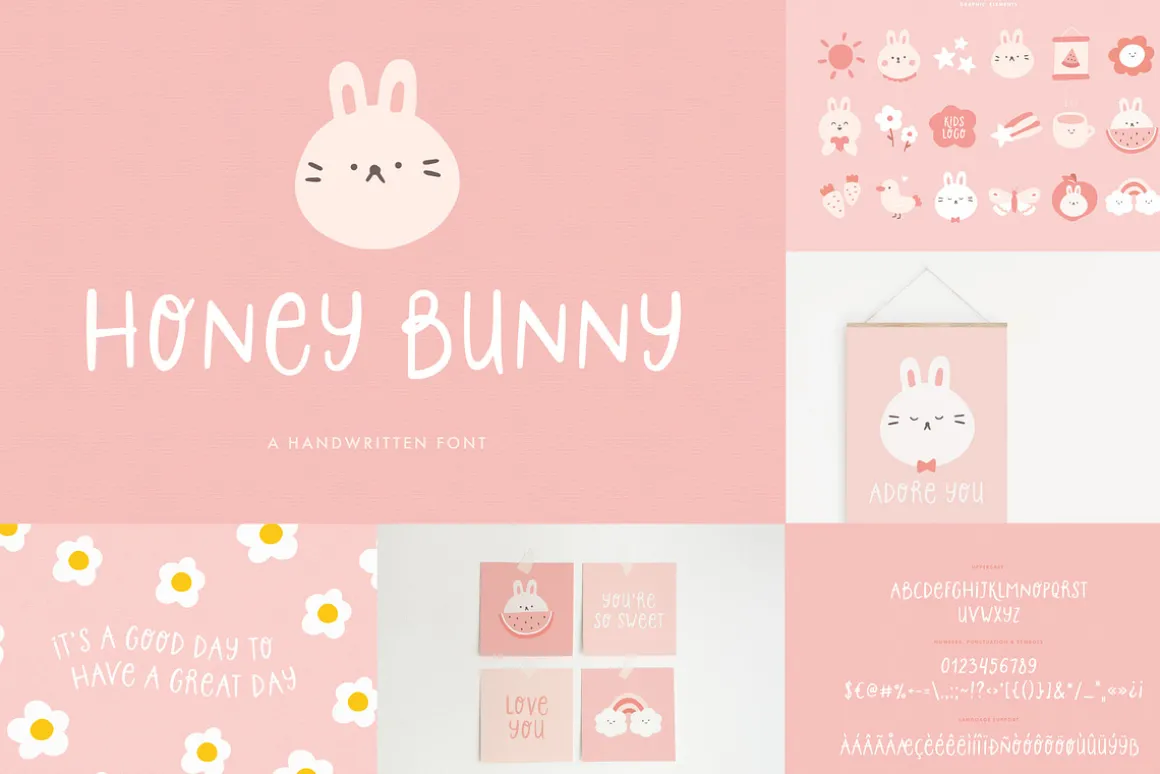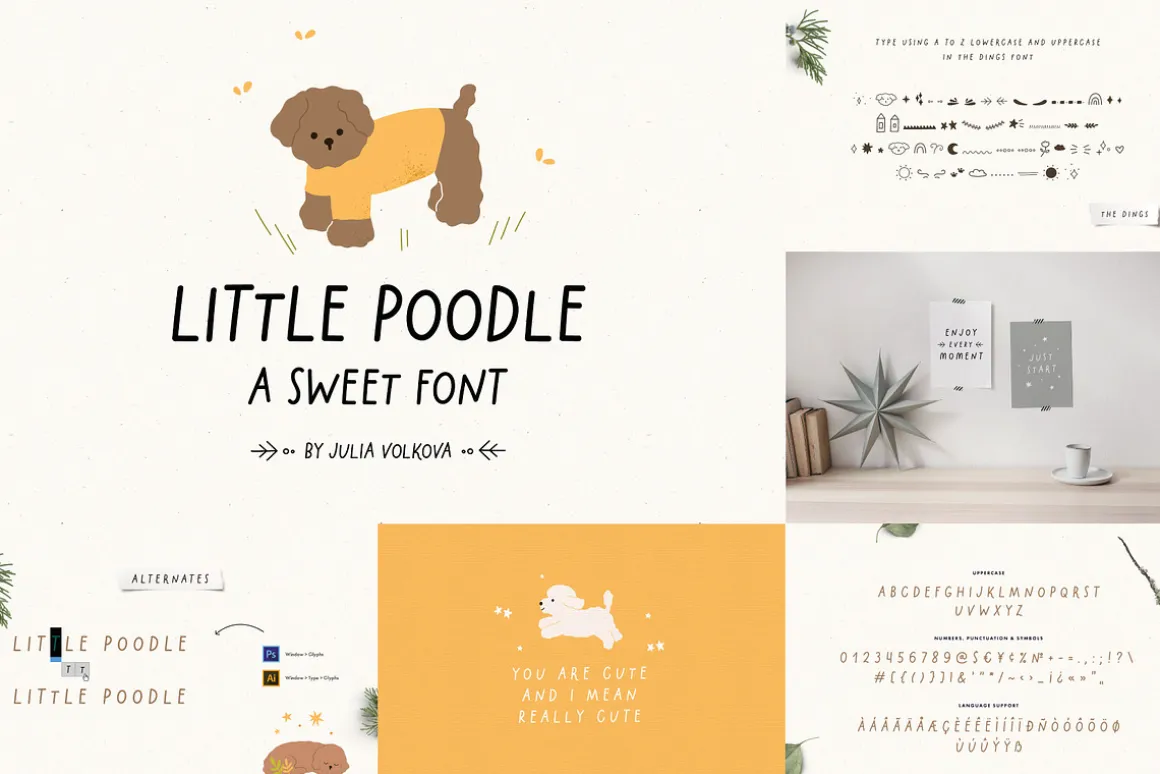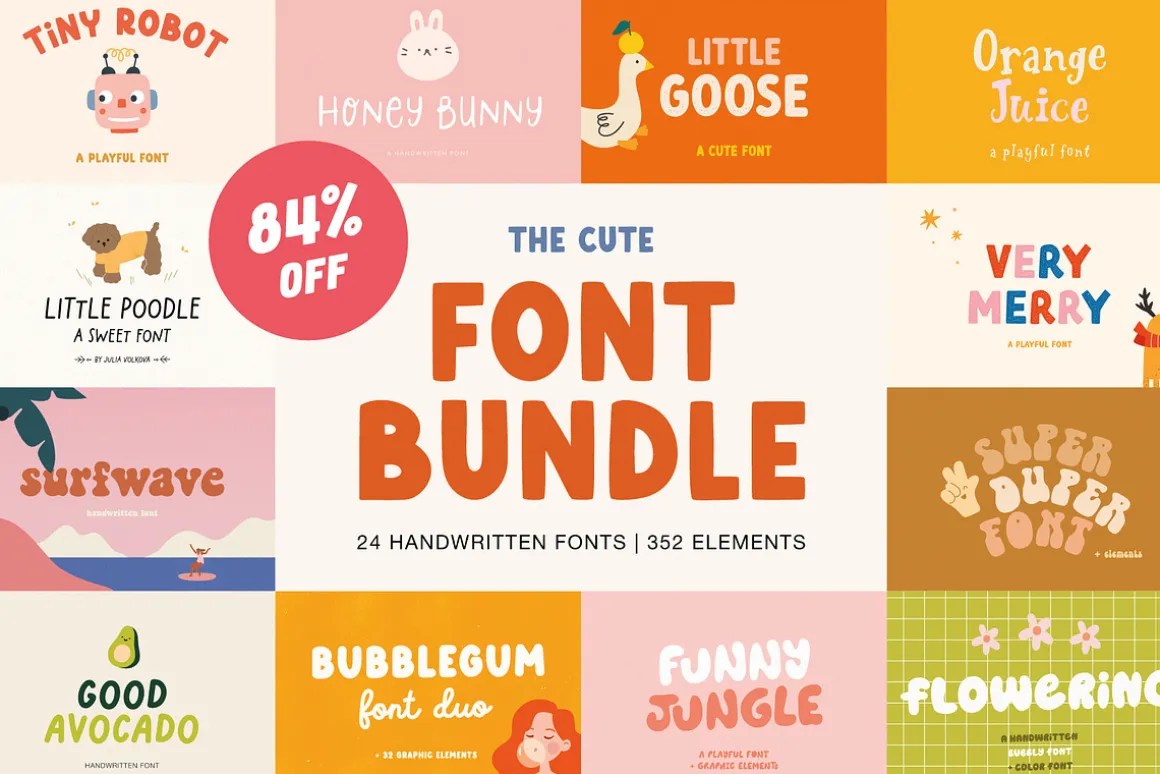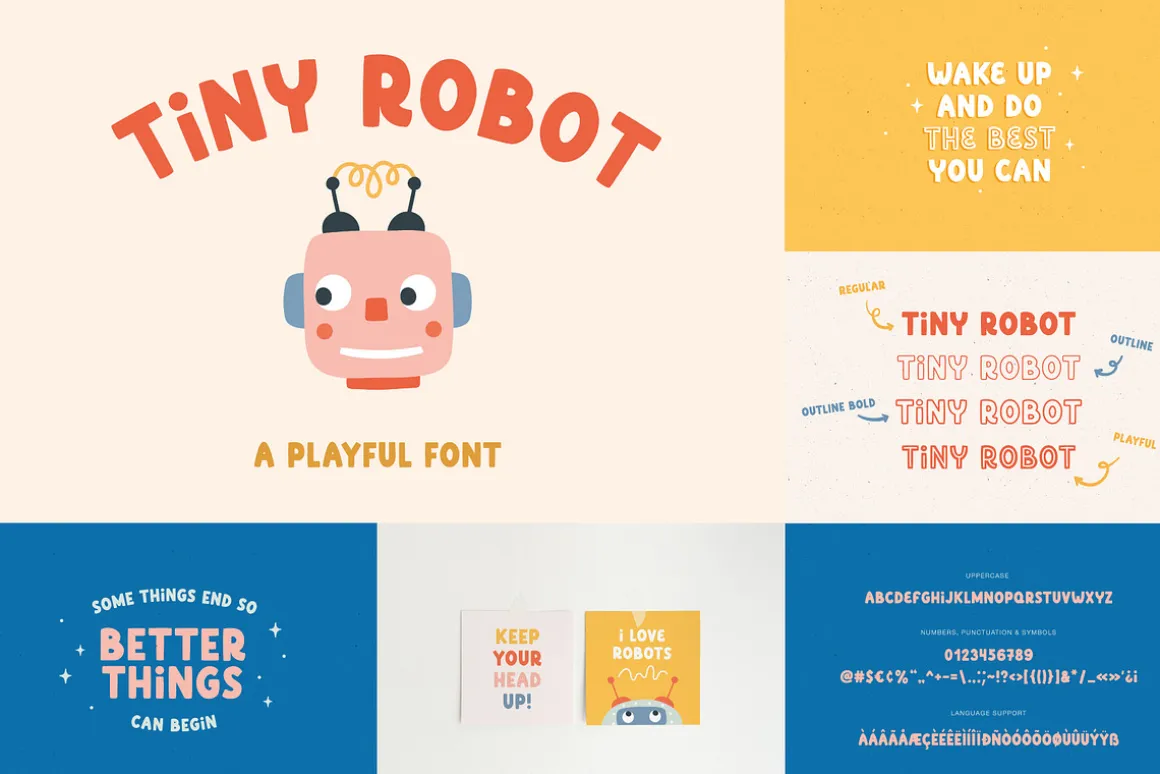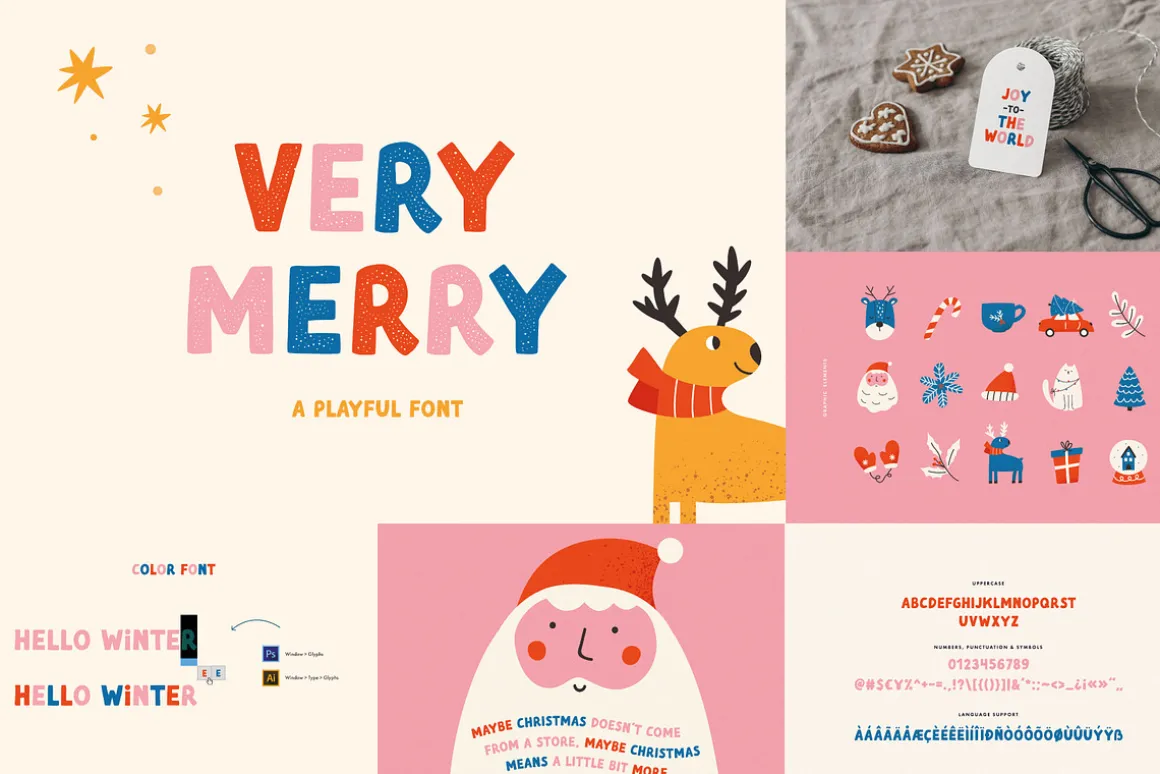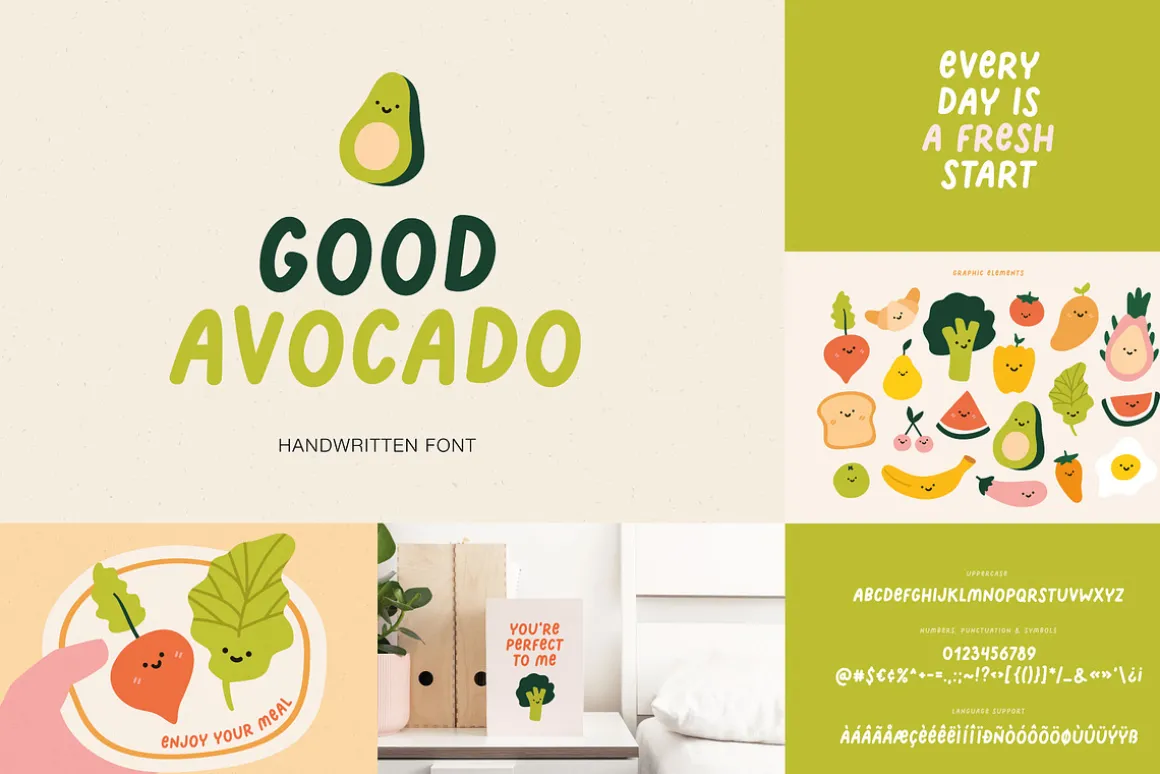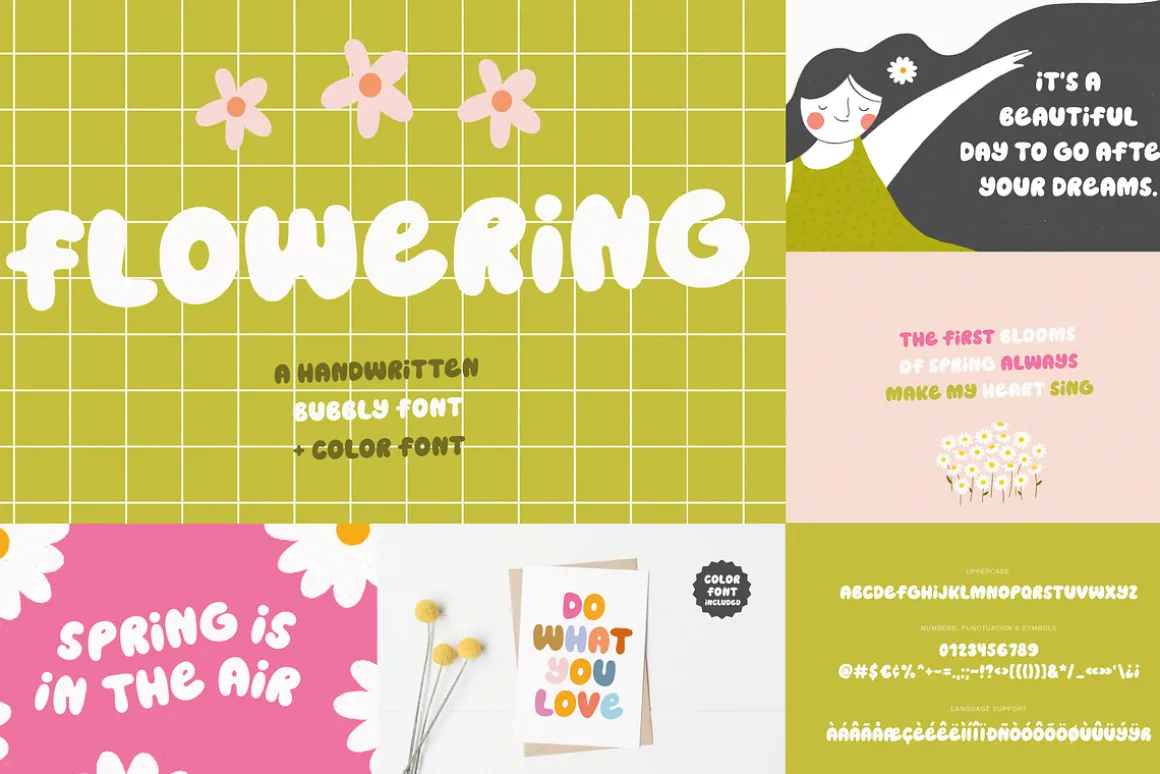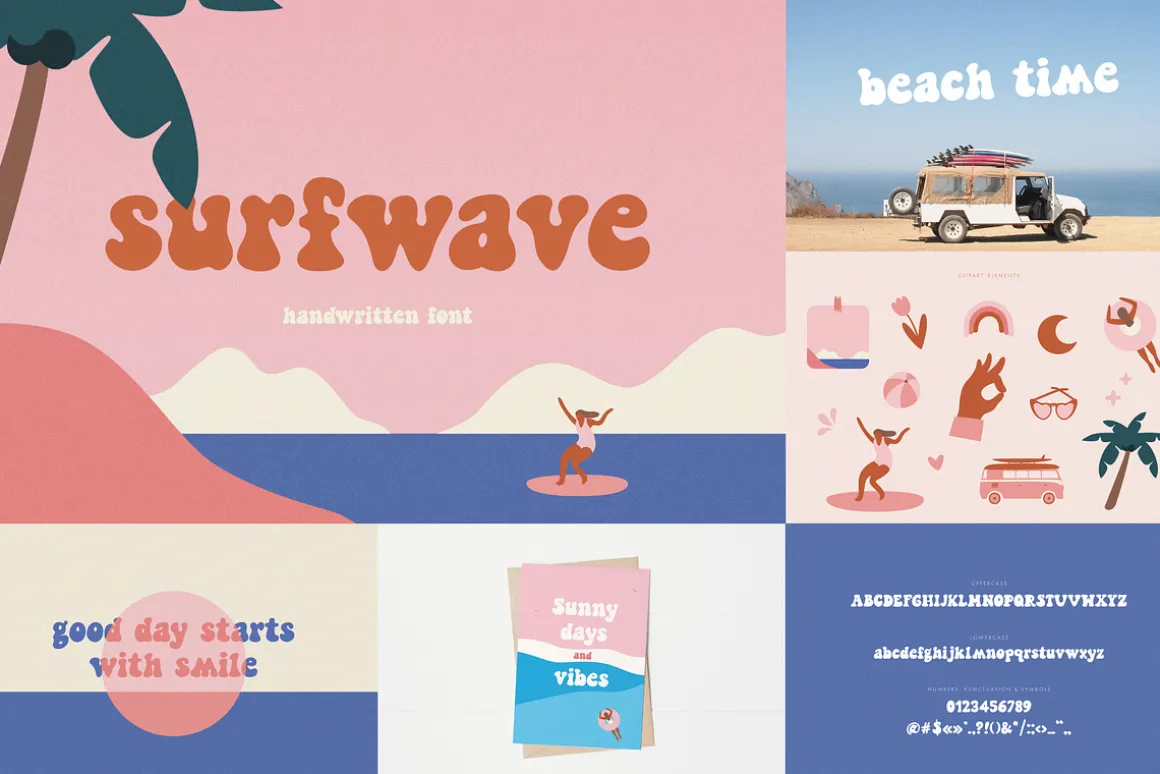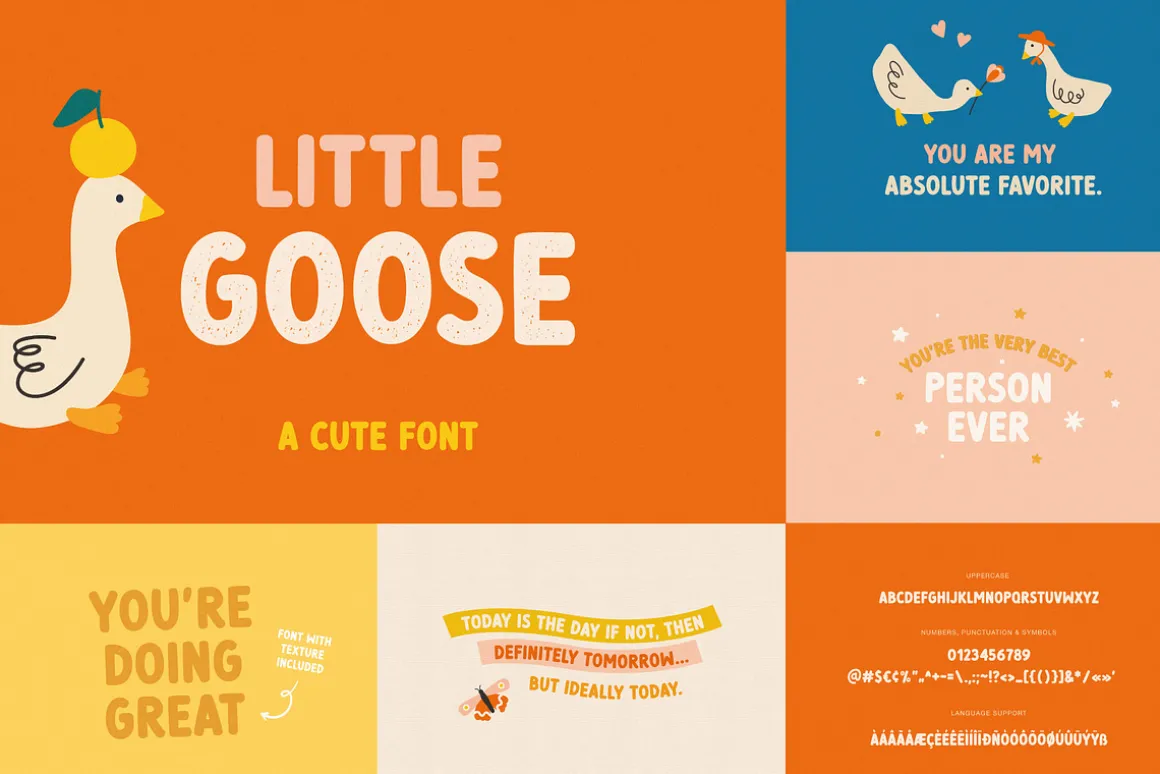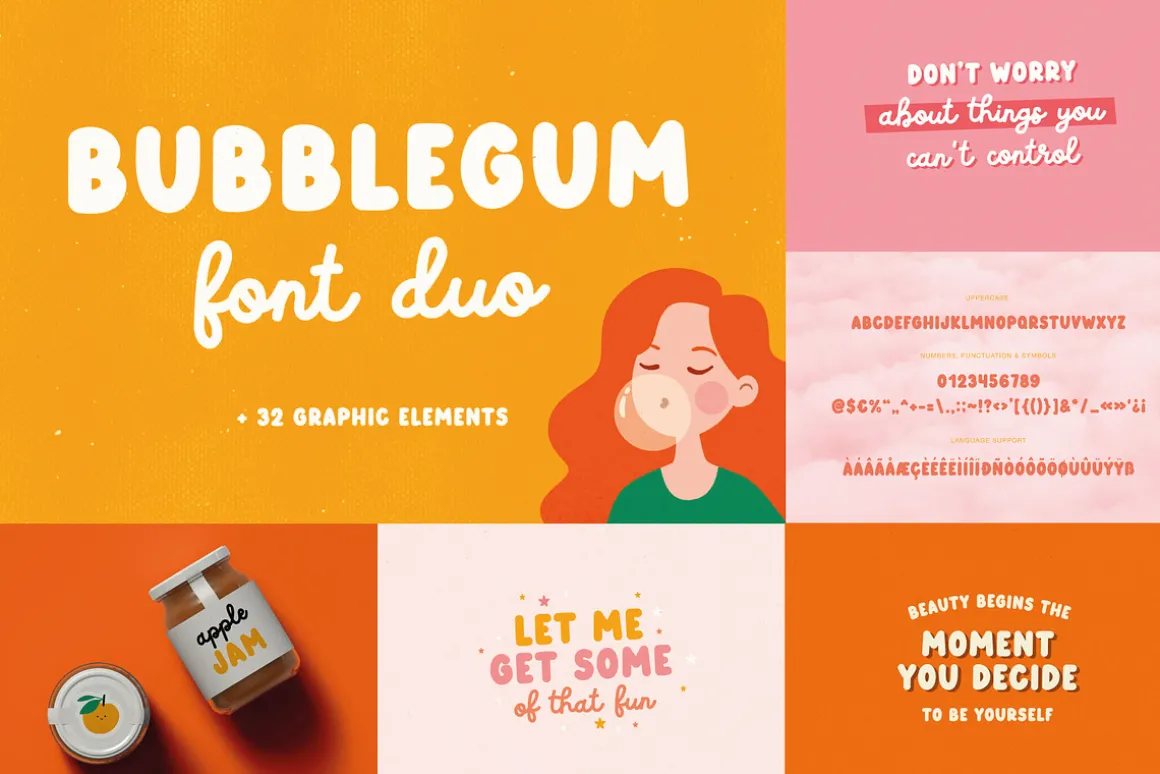
The cute font bundle – a set of 24 handwritten fonts and 352 a fun graphic design elements. Hand drawn style provides an imperfect look, great to add a handmade touch to your projects.
- Little goose
Cute font - Very Merry
Playful font - Flowering
Bubbly font - Surfwave
Handwritten font - Bubblegum
Font duo - Funny Jungle
Playful font - Super Duper
Handwritten font - Tiny robot
Playful font - Little poodle
Sweet font - Honey Bunny
Handwritten font - Orange Juice
Playful font - Good Avocado
Handwritten font